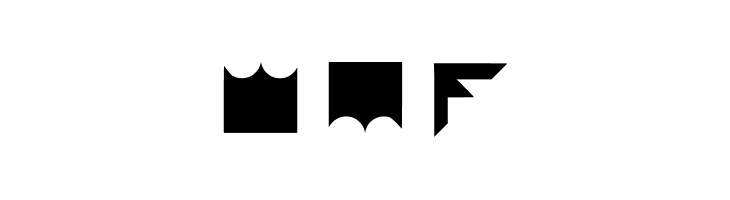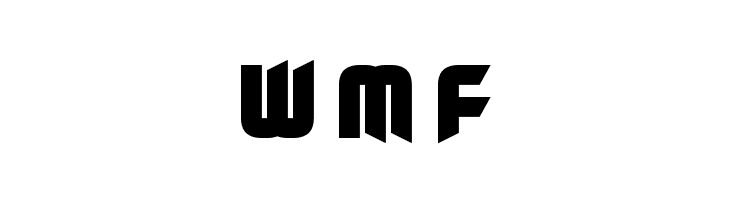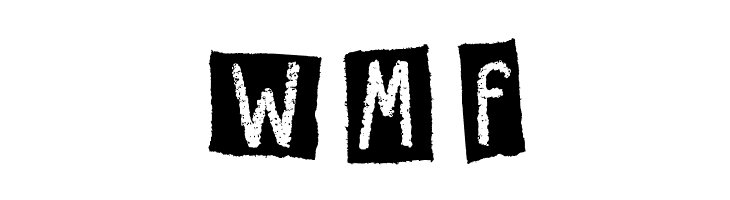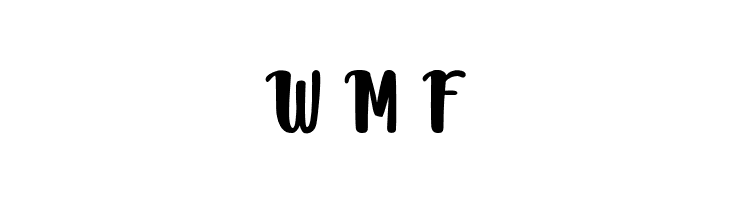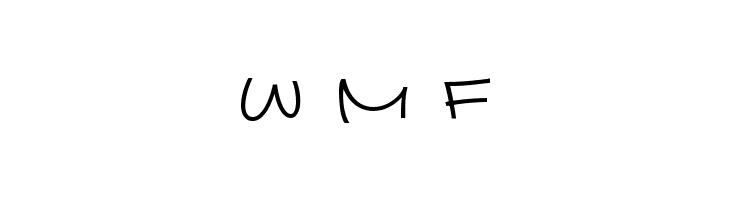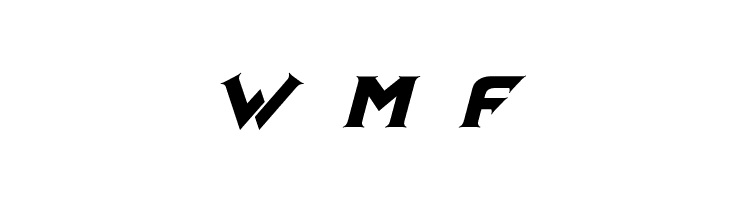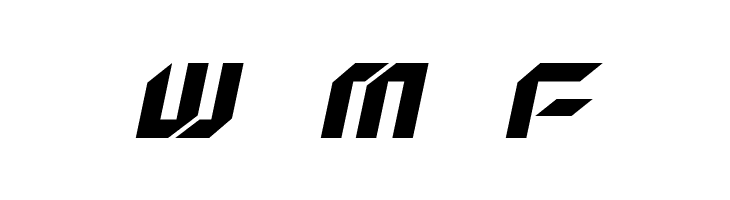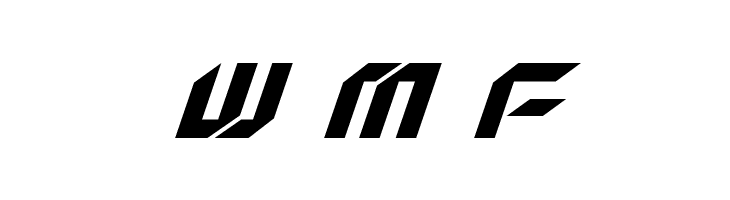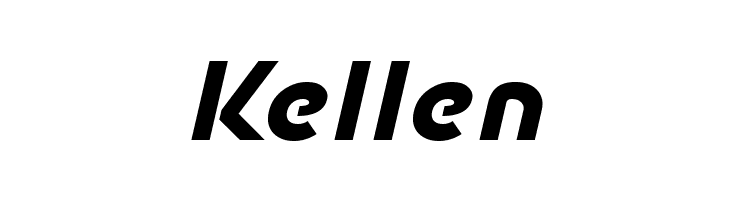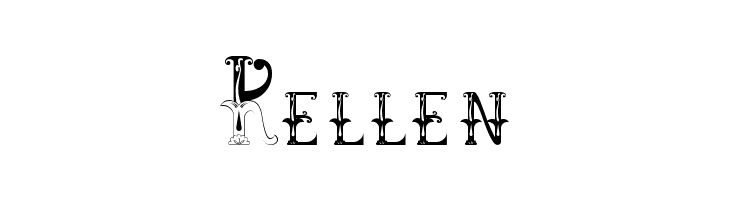
A playful, collage-style font with a hand-drawn, chalk-like texture.
A bold, brush-stroke font with a dynamic and edgy appearance.
A sophisticated script font with elegant, flowing strokes and artistic flourishes.
A bold, sunburst-encased font ideal for playful and eye-catching designs.
A playful, hand-drawn font with a 3D effect and textured interior.
A playful, bold, and hand-drawn style font with a whimsical touch.
A geometric, three-dimensional font with a faceted, crystal-like design.
A bold, playful script font with a handwritten feel.
A pixelated, grid-like font with a retro digital aesthetic.
A bold, striped script font with flowing curves and a decorative style.
A playful, handwritten font with smooth, flowing lines and a casual style.
A playful, rounded font with smooth curves and consistent width.
A bold, geometric font with a futuristic and mechanical style.
A bold, futuristic font with geometric, stencil-like characters.
A bold, condensed, and italicized font with a futuristic and dynamic style.
A bold, futuristic italic font with angular, geometric shapes.
A bold, angular font with a futuristic, slanted design.
A bold, textured font with a handcrafted, artistic style.
A playful, casual handwritten font with smooth, flowing lines.
A playful, handwritten script font with dynamic and fluid characters.
A bold, angular font with a dynamic and modern style.
A bold, gothic-inspired font with sharp, angular edges and dramatic serifs.
A playful, rounded font with a modern and approachable style.
A bold, chunky font with playful, irregular shapes and rounded edges.
A bold, expanded, and futuristic font with geometric shapes and sharp edges.
A futuristic, striped display font with a dynamic and energetic design.
A bold, italic, and futuristic font with sharp, angular edges.
A bold, expanded, and italicized futuristic font with sharp, angular edges.
A bold, angular, and italicized font with a futuristic and dynamic style.
A playful, rounded font with a handwritten feel, perfect for casual and creative projects.
A bold, angular font with a modern, edgy style.
A playful, casual handwritten font with fluid, connected letterforms.
A bold, rounded, and playful font with a vintage feel.